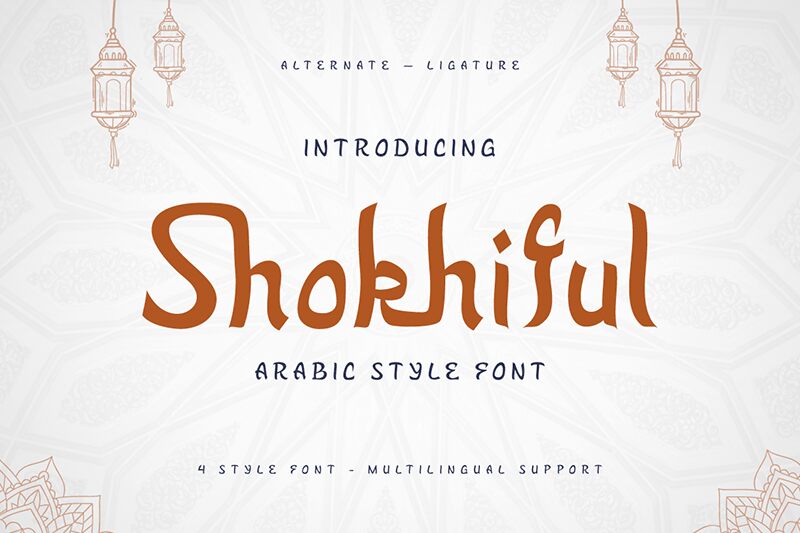
Shokhiful font family by twinletter boasts two font styles that seamlessly blend contemporary fluid forms with Arabic-inspired elements. This free font family is marked by its dynamic character, rich visual appeal, and exquisite cultural elegance.
Expressive and unique, it offers an artistic flair ideal for modern applications in branding and creative projects. With its distinctive visual properties, Shokhiful is a match for editorial use, logo design, merchandise design, product packaging, posters, titles, web design, advertising, and contemporary art.